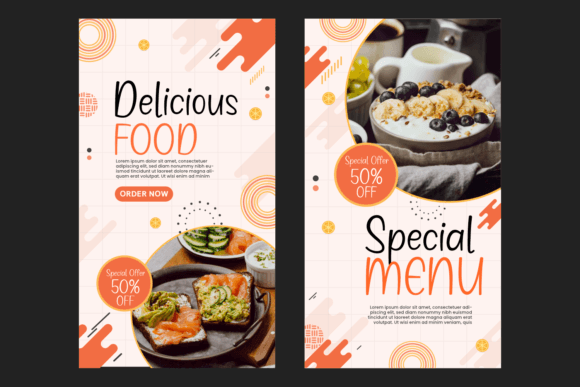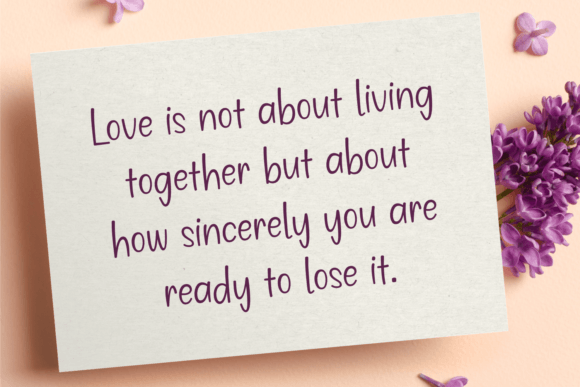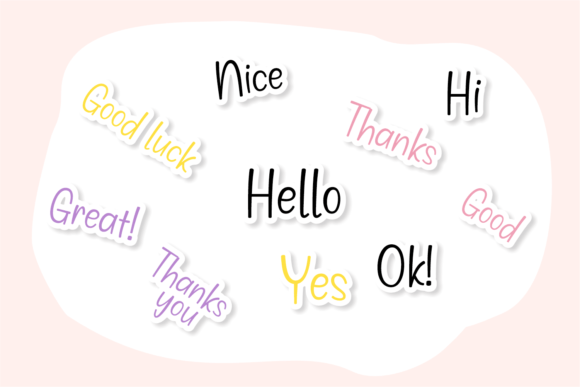
Introduction to Kathy Fillia Font
As I sat at my desk, surrounded by scraps of paper and half-finished designs, I stumbled upon a font that would change the way I approached my creative projects. It was a simple yet elegant font that caught my eye – the Kathy Fillia Font. I was immediately drawn to its modern and easy-to-spot design, and I knew I had to learn more about it.
The Kathy Fillia Font is a versatile design resource that can elevate any creative project. Whether you’re working on a magazine article, crafting a custom poster, or designing a book cover, this font is a great choice. Its simple yet distinctive design makes it perfect for adding a touch of authenticity to your work.
As a designer, it’s always exciting to discover new fonts that can add value to our projects. The Kathy Fillia Font is no exception – its high-quality design and transparent background make it a valuable asset for any creative endeavor.
Key Features of Kathy Fillia Font
- Comes in a transparent background for flexibility and customization
- Designed with a unique, hand-drawn aesthetic for a personal touch
Honest Review: Kathy Fillia Font
I recently had the chance to work with the Kathy Fillia Font and I’m excited to share my honest review with you. This font has become a valuable addition to my design resource collection, especially for creative projects that require a unique touch.
- ✨ Unique and elegant design that adds a touch of sophistication to any project.
- ✨ High quality font that is perfect for both digital and print designs.
- ✨ Transparent background, making it easy to work with in graphic design software.
- ⚠️ Limited character set, which can be a problem for projects that require a lot of text.
Overall, I’m impressed with the Kathy Fillia Font. It’s a great addition to any designer’s toolkit and I’ve already used it in several creative projects. While it has some limitations, the unique design and high quality make it well worth the potential drawbacks.
Common Use Cases for Kathy Fillia Font
The Kathy Fillia Font is ideal for a variety of creative projects, including logos, business cards, and social media graphics. You can also use the font to create eye-catching headings or titles for presentations, reports, and documents.